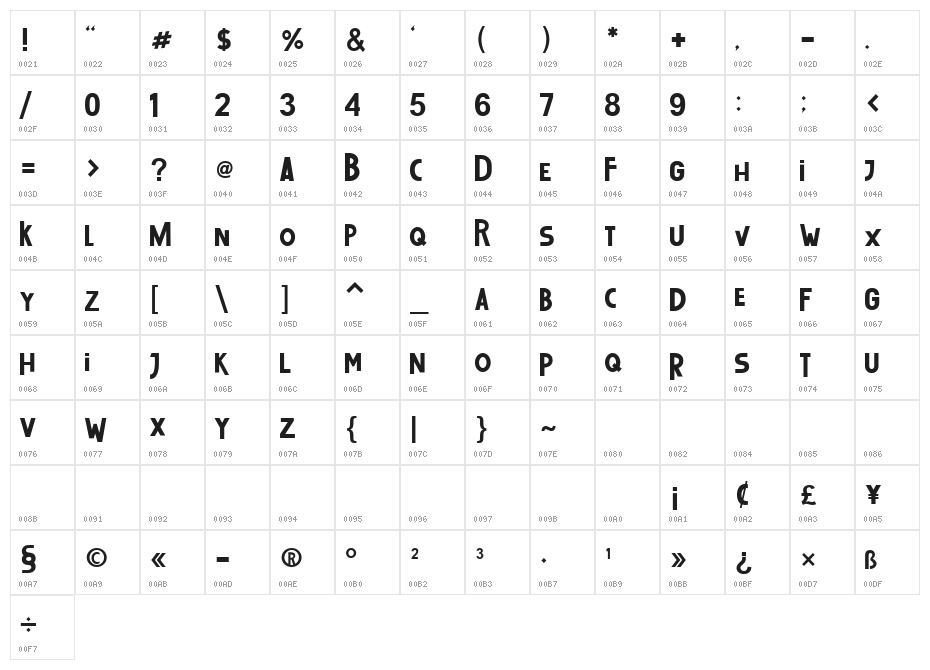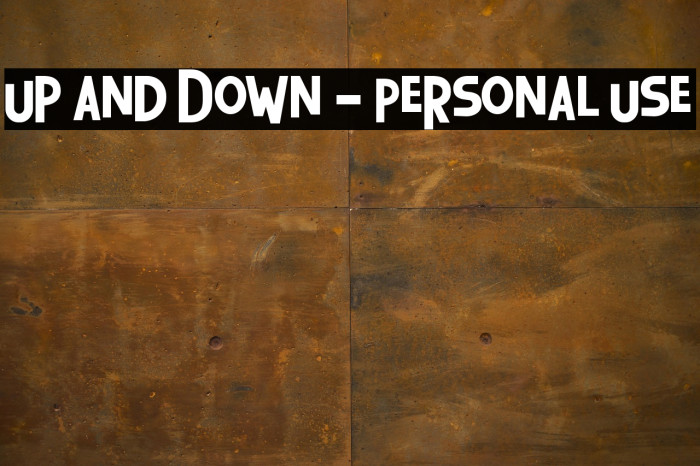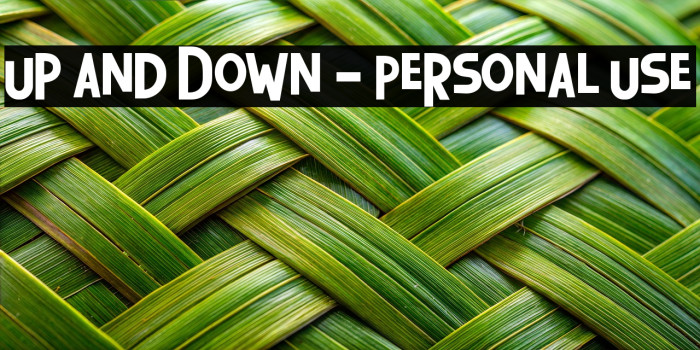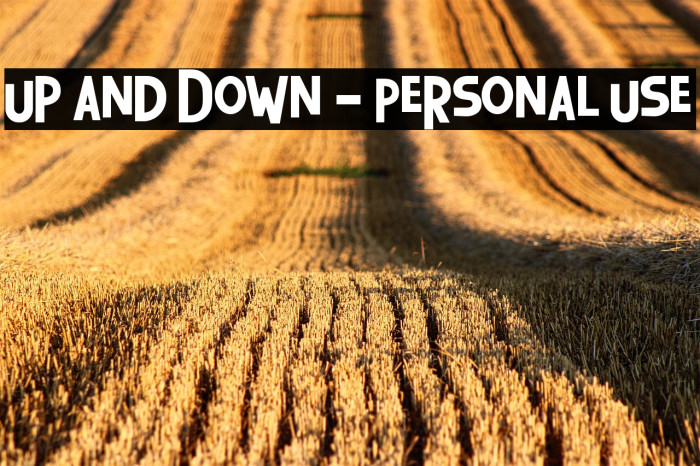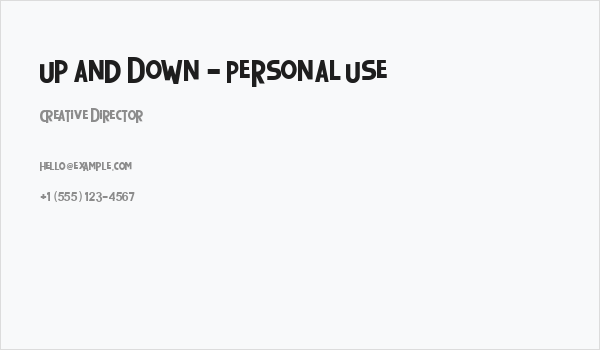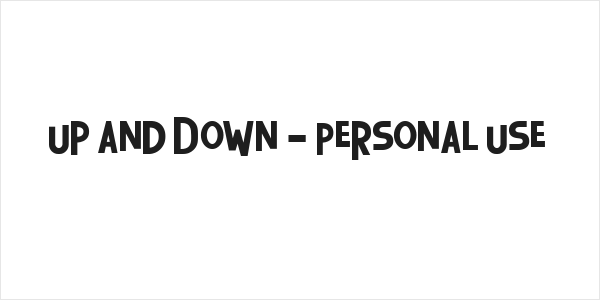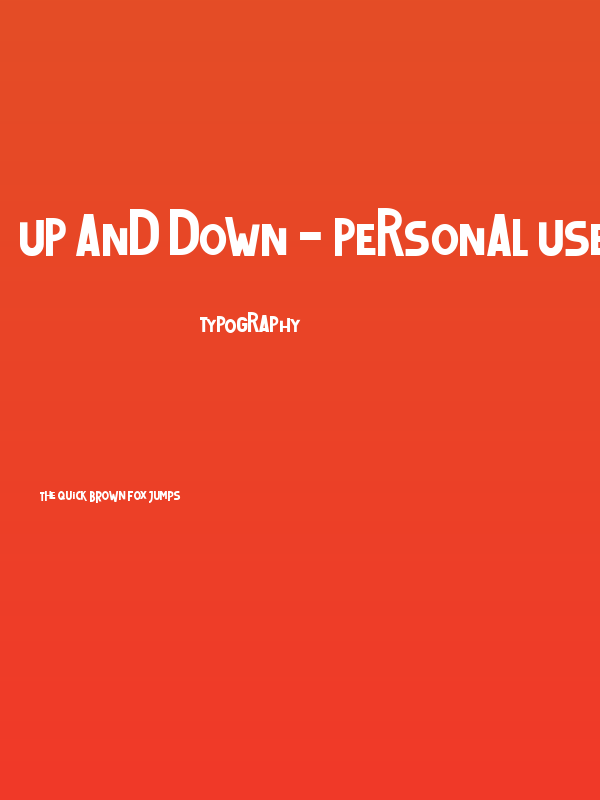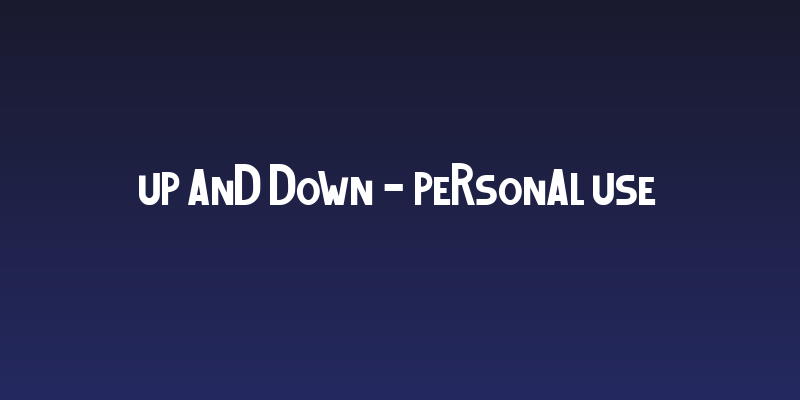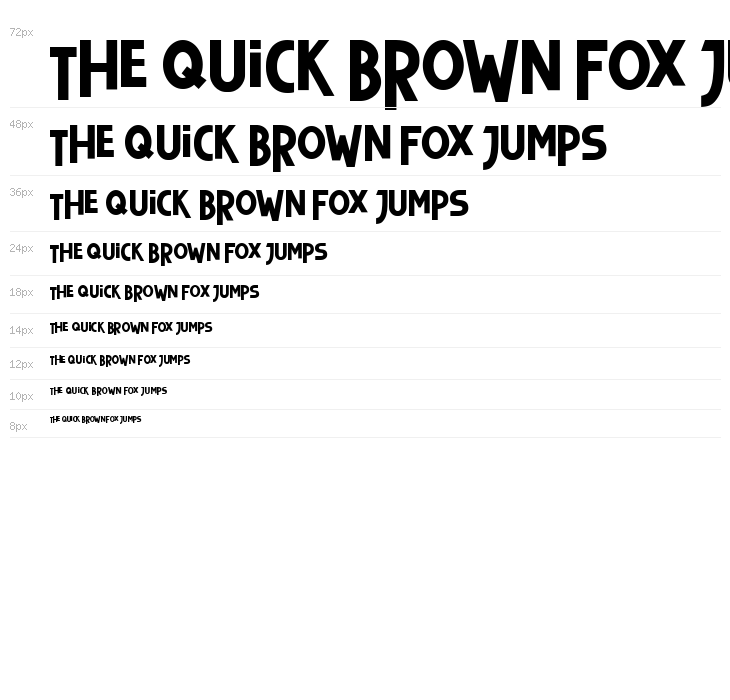
Up and Down - Personal Use Font
Up and Down - Personal Use Description
This font features a bold and playful design with a unique combination of uppercase and lowercase letters that create a dynamic visual rhythm. The characters are slightly condensed, giving it a compact appearance. The strokes are thick and consistent, offering a medium contrast that enhances readability. The overall style is modern and quirky, making it suitable for projects that require a fun and engaging typeface. The numerals and special characters maintain the same boldness, ensuring uniformity across different text elements.
| Overall Style | Modern, Quirky |
| Proposed Projects | Ideal for children's books, playful branding, posters, and creative advertising. |